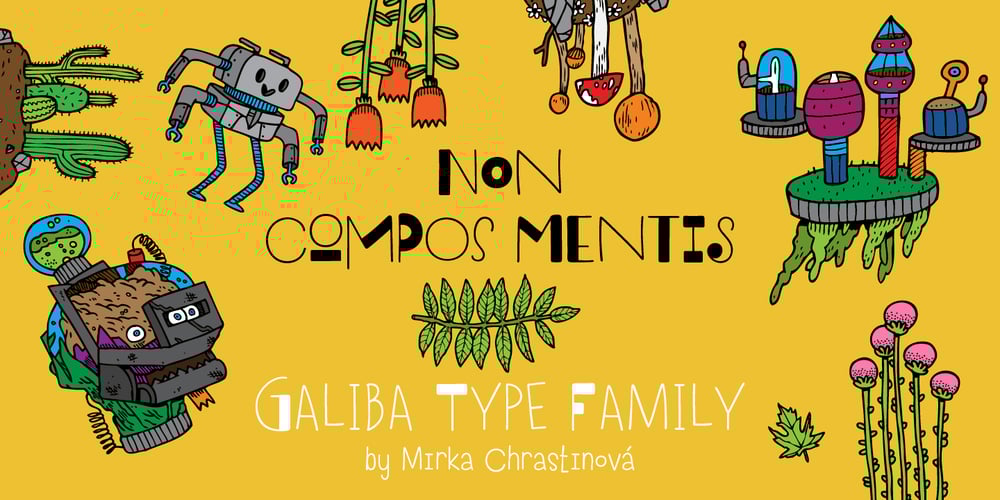
Galiba Font Family was designed by Mirka Chrastinová and published by Juraj Chrastina. Galiba contains 3 styles and family package options. Give your voice an eye-catching hand-drawn look thanks to this playful font family. You’ll get three styles, along with OpenType features including alternates, ligatures and stylistic sets. Galiba Regular works very well with his small brothers Light and Thin. In addition Galiba Light can be used at smaller size along with the other styles to keep the same line thickness. To achieve a random-like effect, the regular style is packed with 4 different variants of each glyph, that automatically cycle if stylistic alternates are turned on. Also you can choose from 5 stylistic sets to easily change the look of a given string, or pick alternates by hand. Not to mention that we’ve attentively fine-tuned the kerning that’s crucial for this kind of typeface.